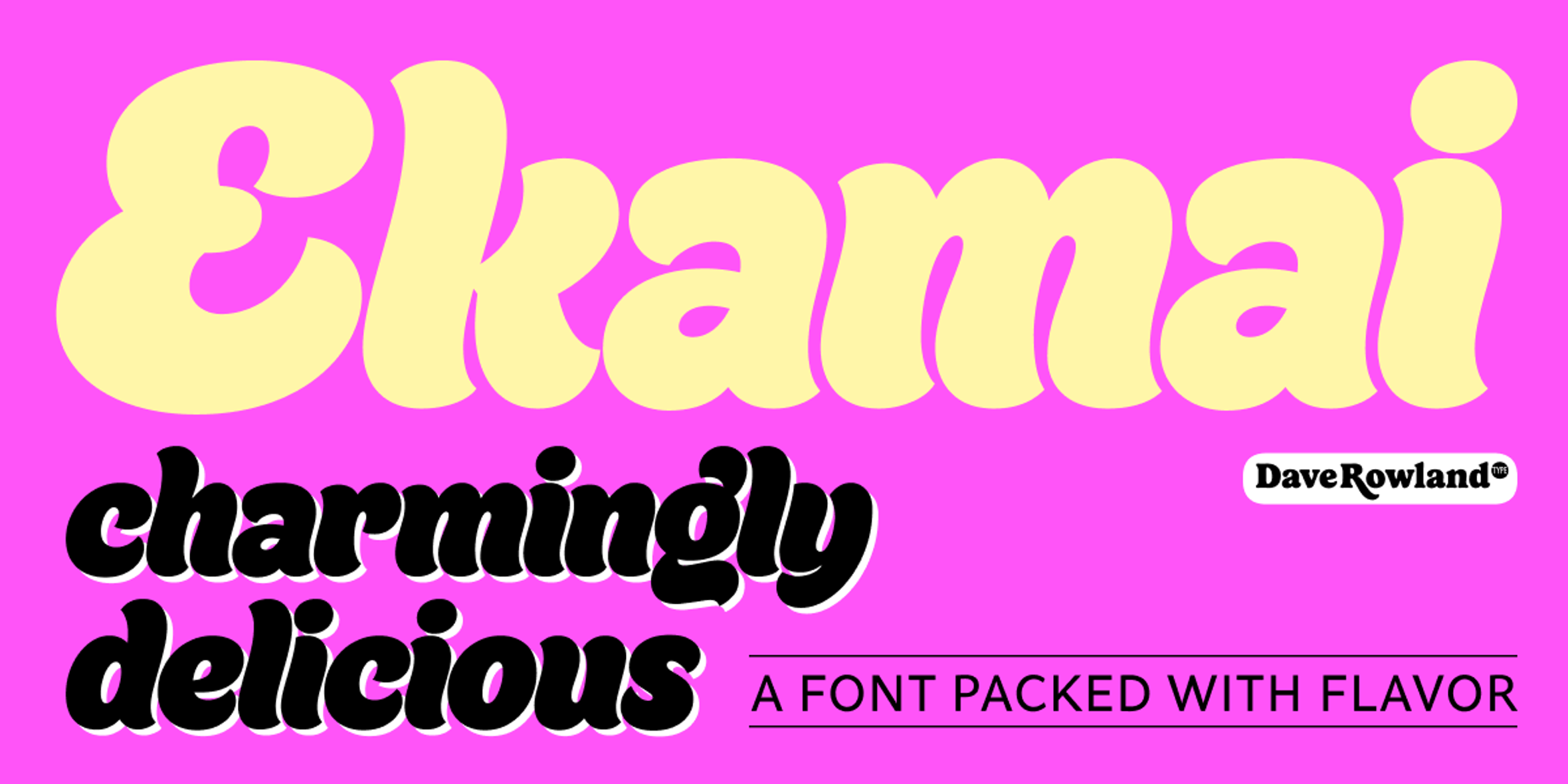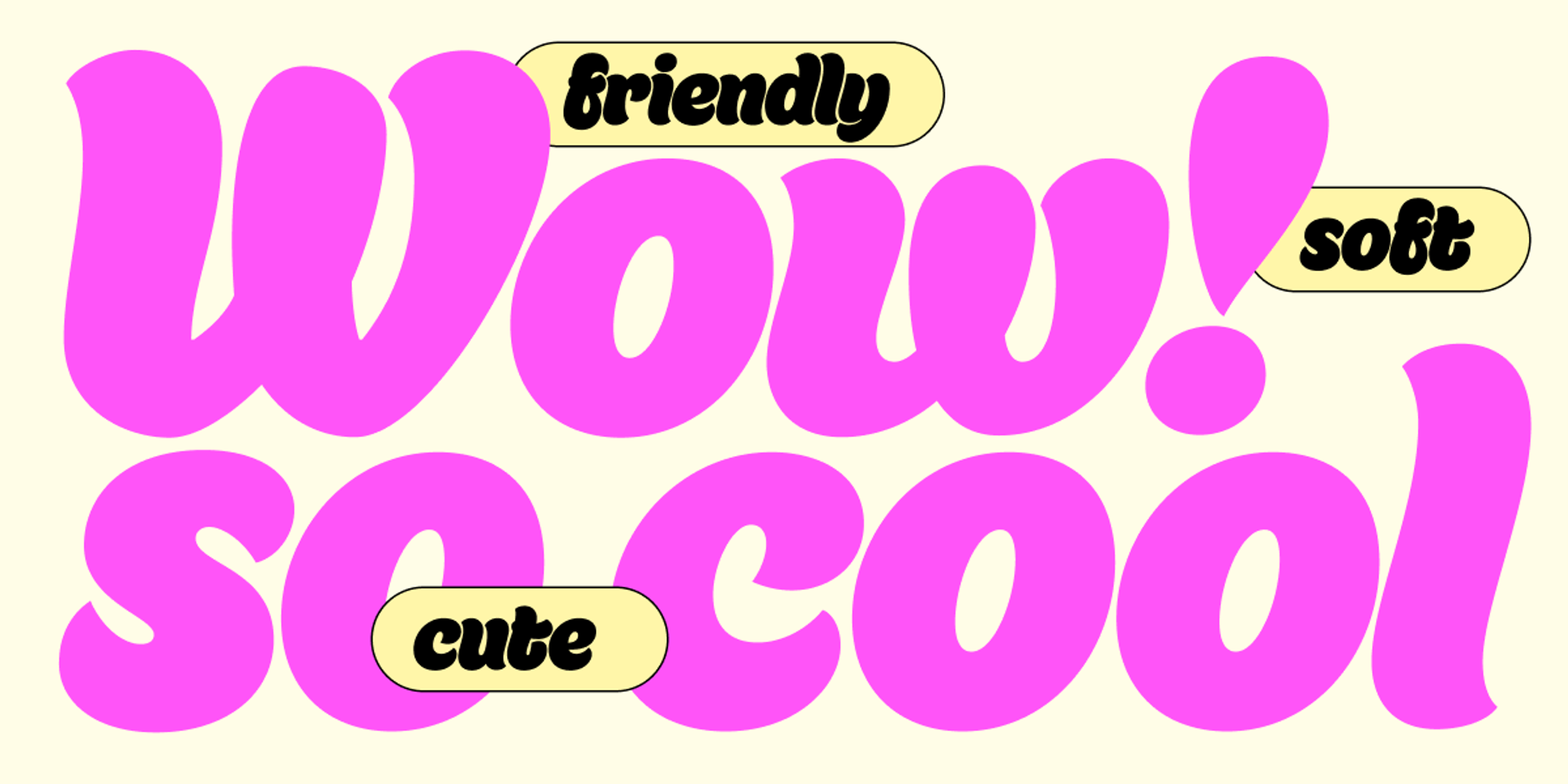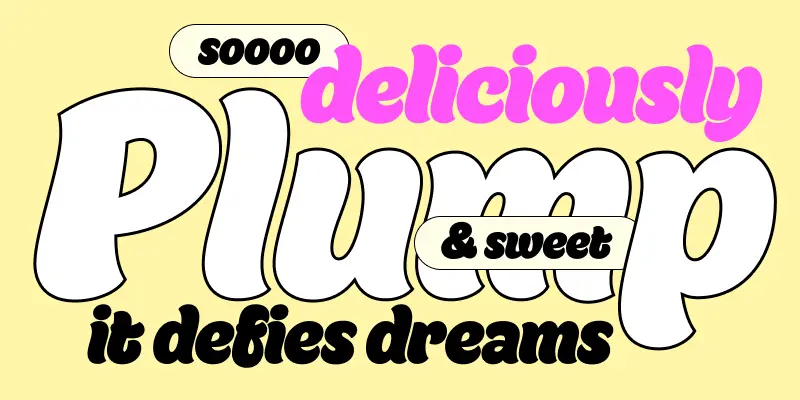
Ekamai Font
Ekamai
This is Ekamai, a deliciously plump, tight-but-not-touching script. It is named after a district of Bangkok where Dave Rowland once lived. With its lovingly drawn curves and just the right amount of cuteness, Ekamai is perfect for food packaging (of the sweeter variety, probably!), logos, magazine headlines, branding, and the like. The overall feel is friendly and soft without being overtly saccharine. Ekamai pairs well with Quinella, a slightly older sibling, in dramatic and exciting ways, too!
- Discretionary Ligatures
- Fractions
- Ordinal Numerals
- Stylistic Alternates
- Swashes